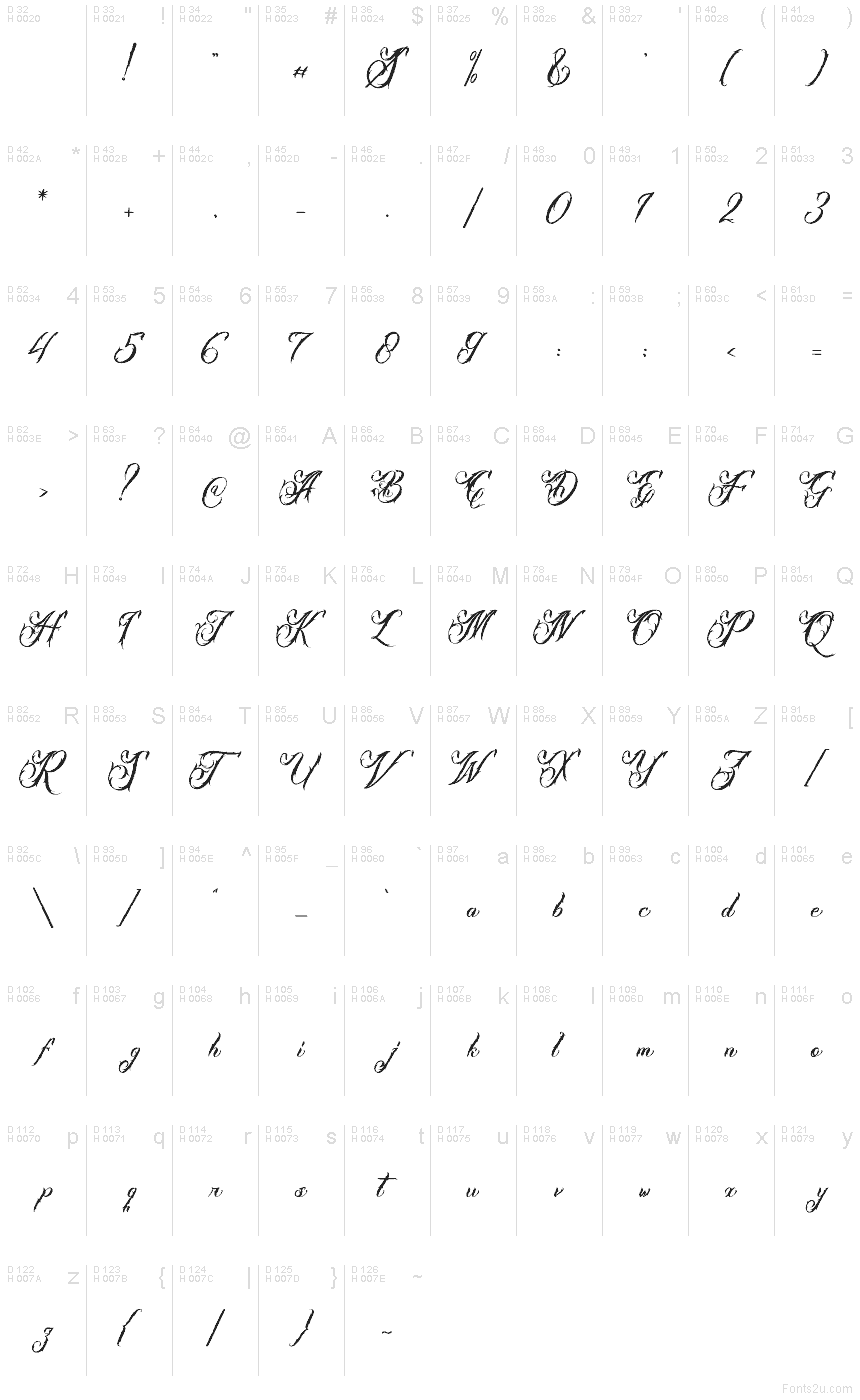
Misthycal
Misthycal font by Denustudios is a free brush calligraphy typeface that looks like it’s been scratched out with an inky, enchanted quill. Long, thorny flourishes curl off the letters, and the strokes fade from bold to whisper-thin, giving every word a windswept, occult feel. It’s dramatic and a little wild, like something you’d see on a worn spellbook cover or a dark fantasy poster.
Using Misthycal, you can bring atmosphere to fantasy book covers, metal or gothic band logos, witchy branding, tarot or esoteric packaging, and Halloween event posters. This free font thrives at large sizes where its spiky curves and smoky texture can really show. For balance, pair Misthycal with a clean, understated sans serif for body text so the lettering feels like the main incantation on the page.